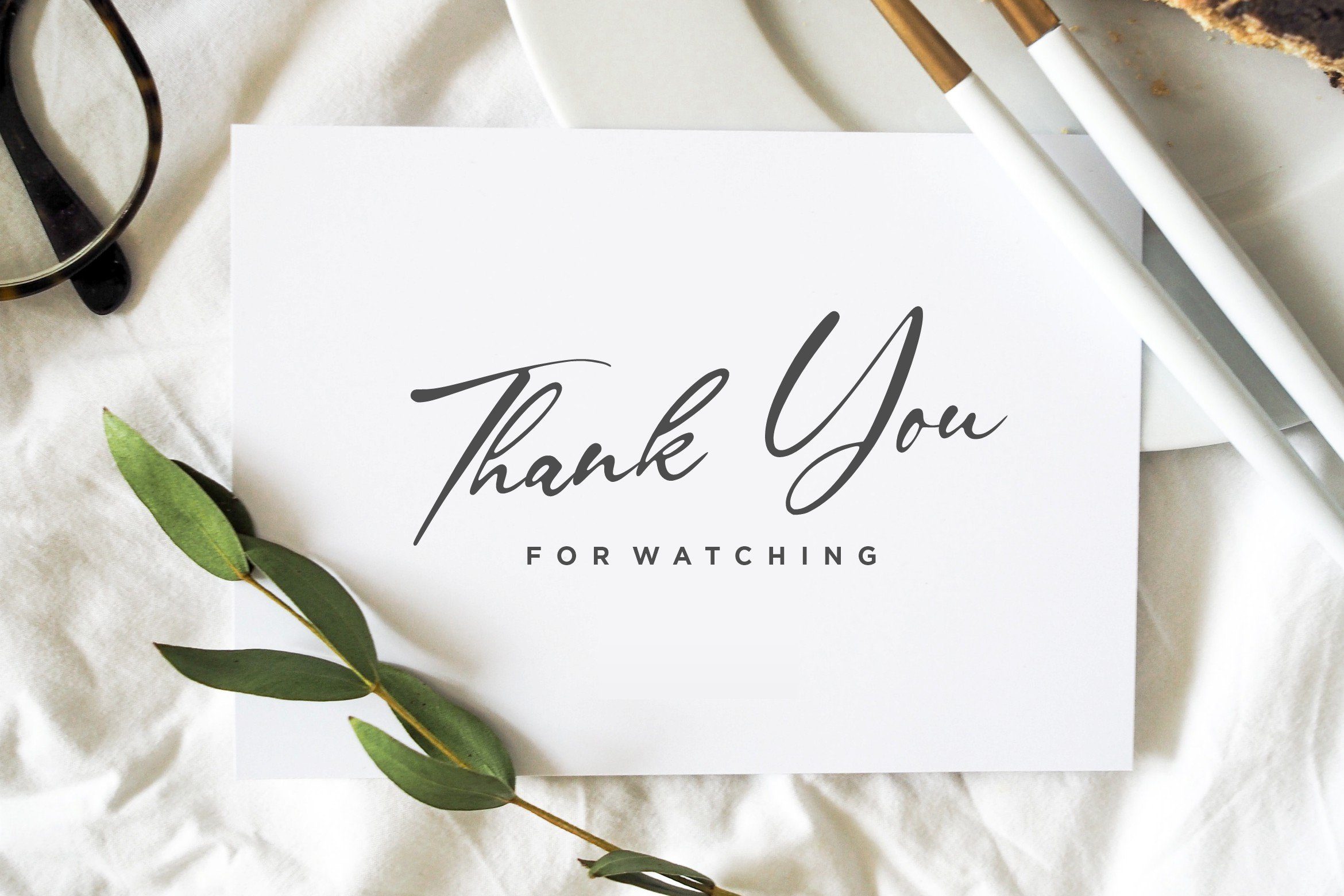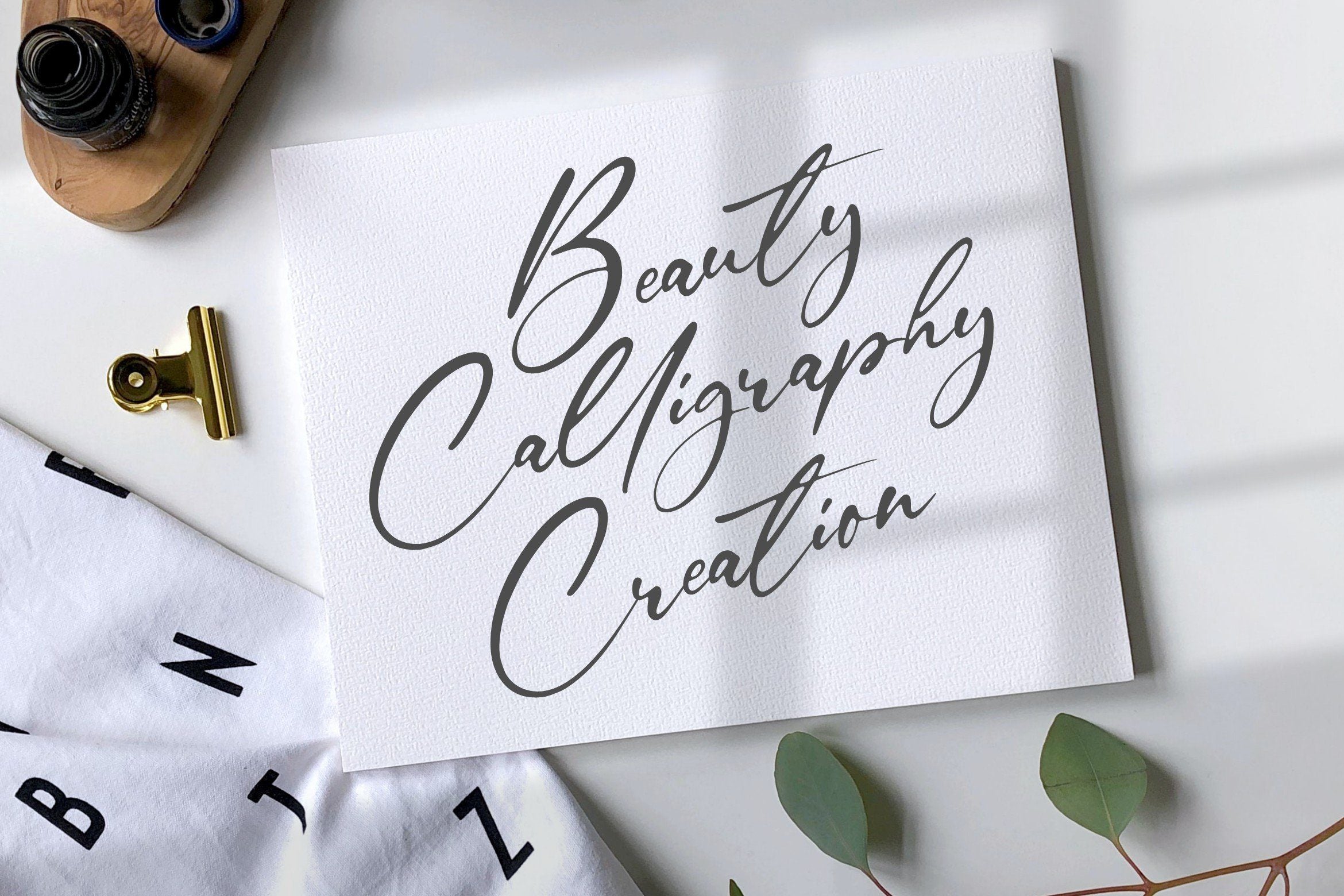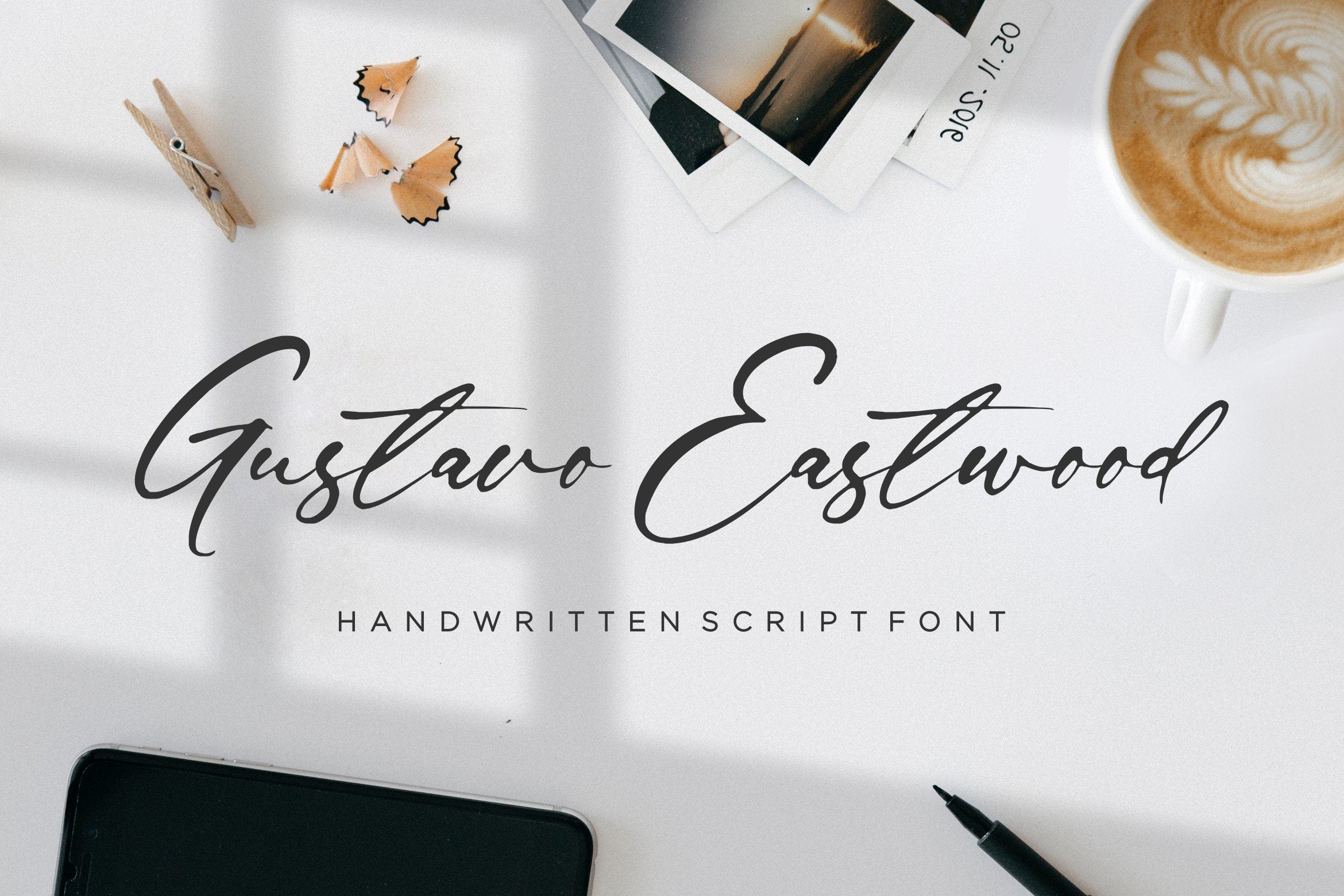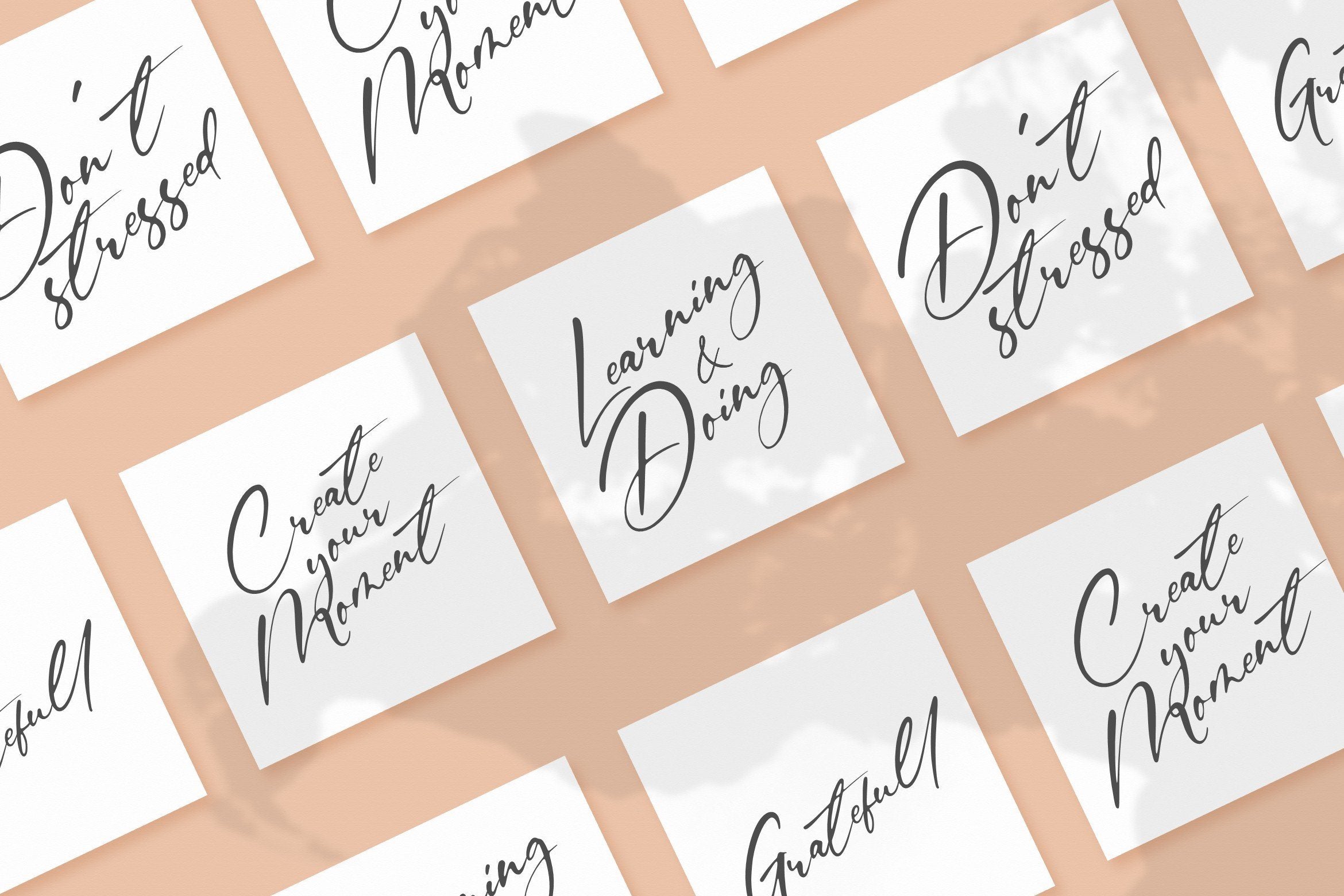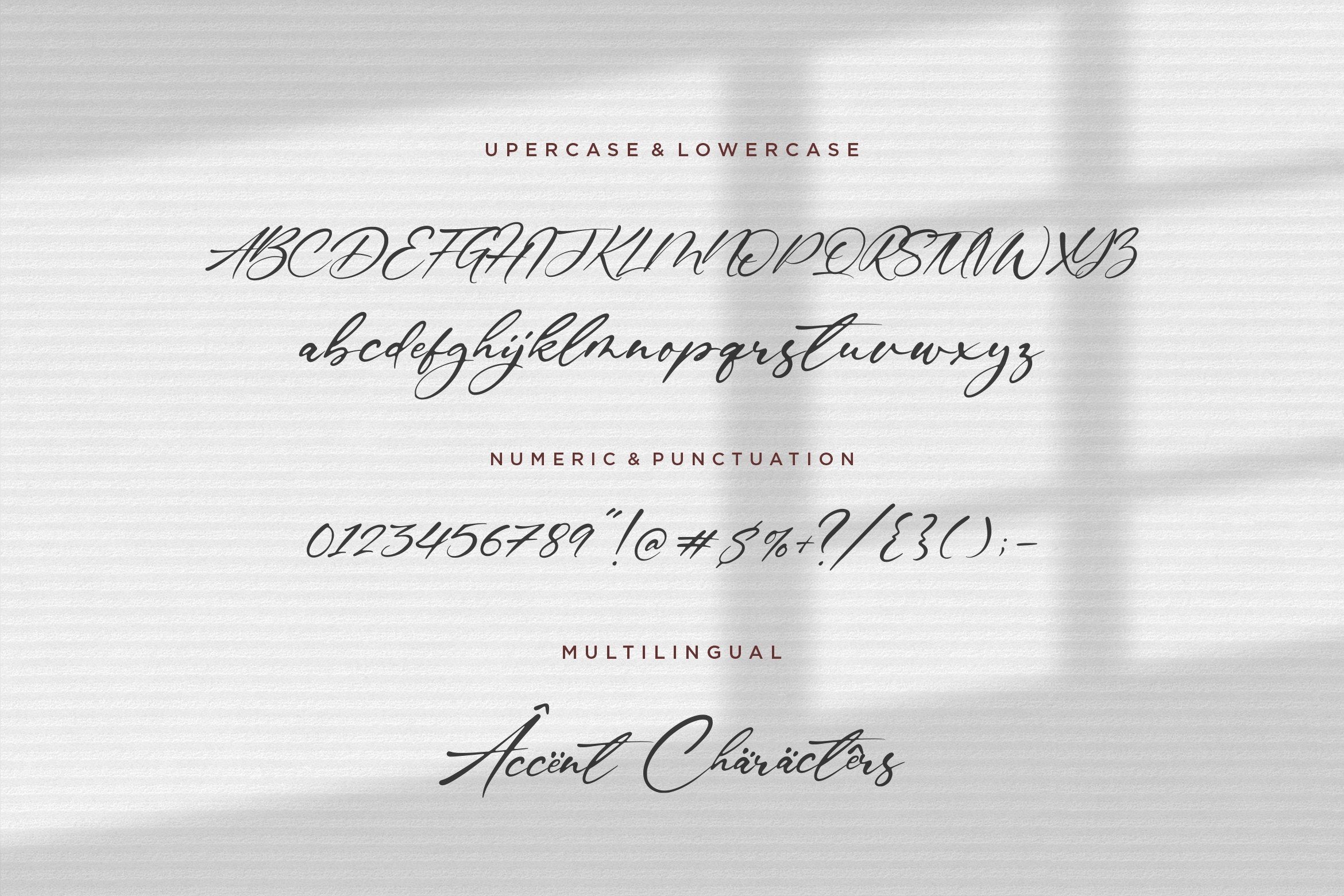
About Gustavo Eastwood Handwritten Script Font
Introducing by Balpirick Studio. Proudly Present, Gustavo Eastwood Font. Gustavo Eastwood is a Handwritten Script Font. Gustavo Eastwood is a beautiful and refined script font. It has a classy, elegant and modern look that can be used for logos, branding, invitations, stationery, wedding designs, social media posts, and much more! This font includes TTF, OTF and WOFF, Gustavo Eastwood also multilingual support. Enjoy the font, feel free to comment or feedback, send me PM or email. Thank you!